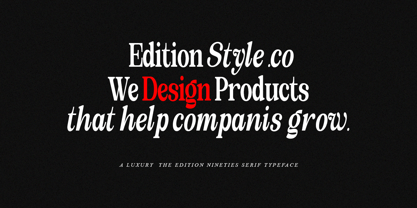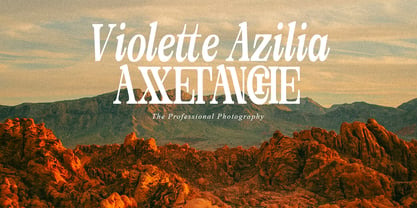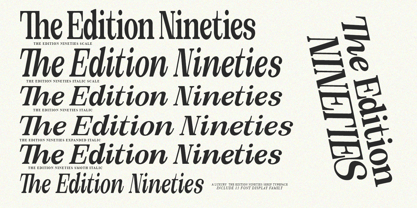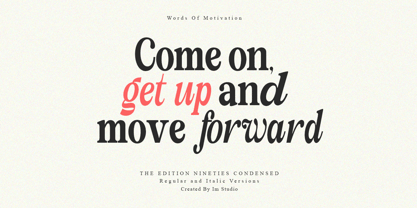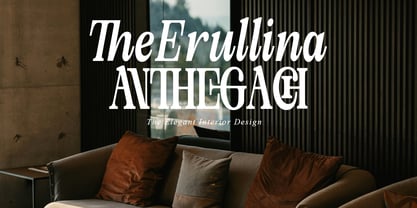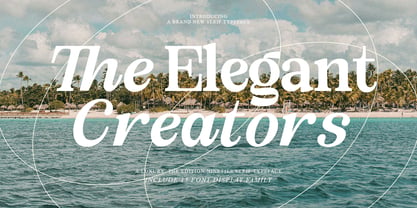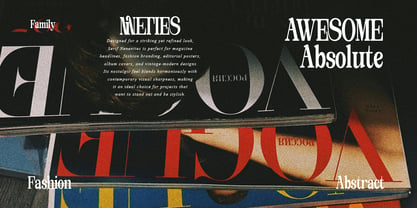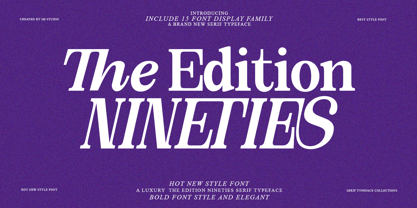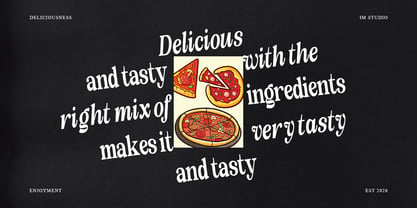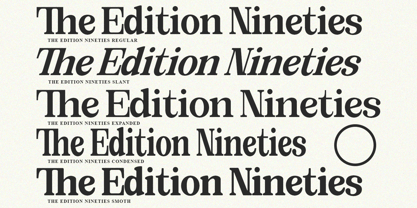
The Edition Nineties
by IM Studio
The The Edition Nineties Font Family was designed by Ikhsan Maulana and published by IM Studio. The Edition Nineties contains 15 styles and family package options. More about this family
Soft Font Family, Sharp Presence. The Edition Nineties is a serif font family with a rounded soul—literally. Built on pure circular forms, this typeface blends the sharpness of modern design with a softness that feels incredibly approachable. It's a typeface shaped by bold shapes, yet guided by emotion. With its luxurious edges, graceful curves, and open rhythm, it's perfect for brands looking to convey warmth, care, or well-being. From beauty products to lifestyle packaging, The Edition Nineties feels contemporary, clean, and accessible. Yet, it never loses its structure—its 15 family styles give it the flexibility to be used across a variety of complex systems, from logos and landing pages to editorial campaigns. It doesn't scream, but it doesn't go unnoticed either. The Nineties Edition has presence without aggression, and character without stiffness.